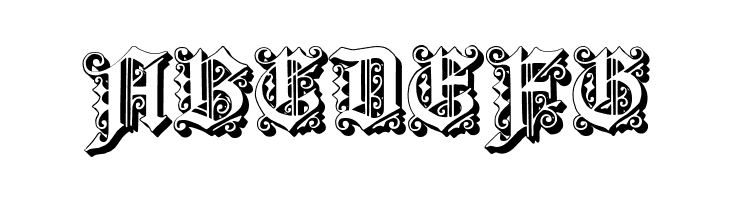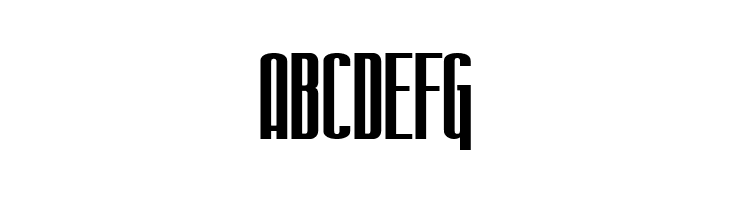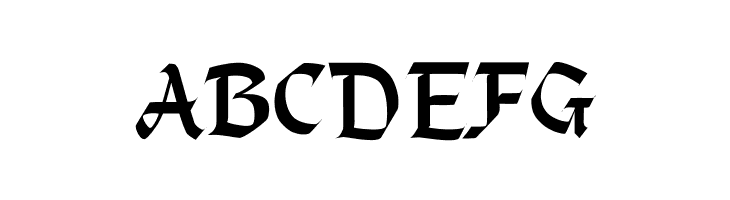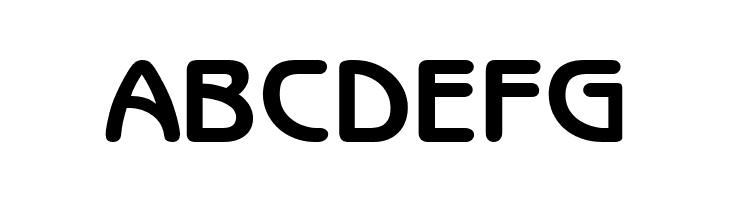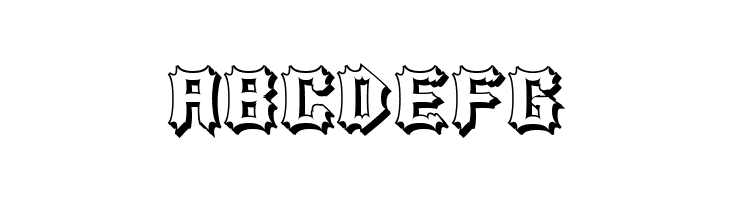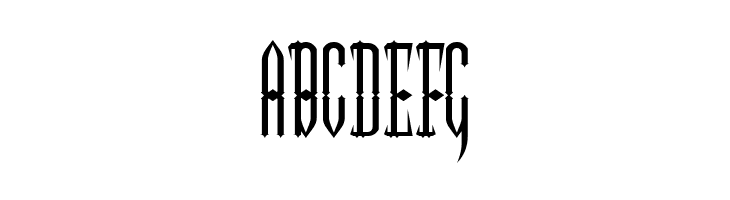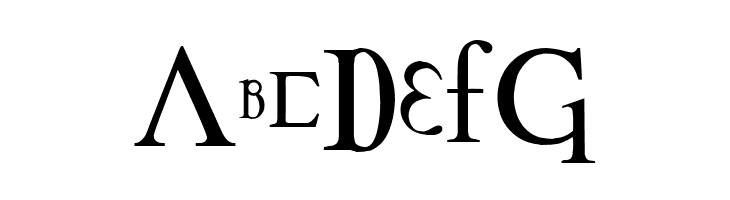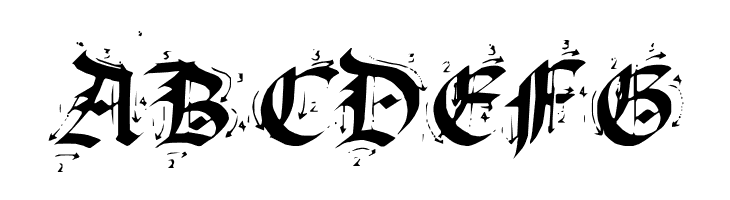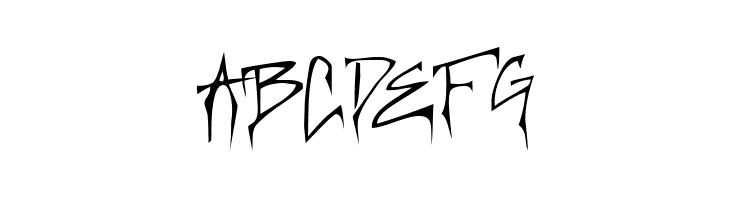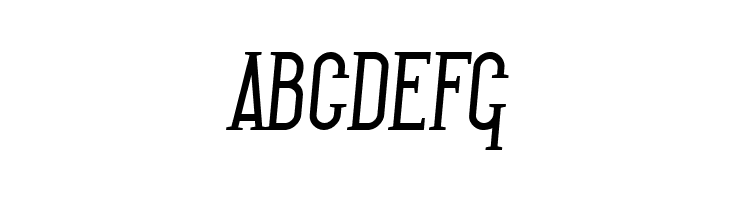
A bold, narrow, and modern font with an industrial feel.
A bold, gothic-inspired font with sharp, angular edges and intricate details.
A dramatic, elongated font with sharp serifs and a gothic flair.
An artistic, high-contrast font with gothic influences and modern flair.
A bold, gothic blackletter font with intricate, medieval-inspired designs.
A bold, angular serif font with a modern and slightly gothic style.
A bold, gothic-inspired font with sharp serifs and a medieval aesthetic.
A jagged, gothic-style font with sharp, dramatic characters.
A bold, angular font with a modern and futuristic style.
A bold, italicized font with a modern and assertive style.
A bold, geometric font with a modern, angular design.
A classic, medieval-inspired font with sharp, angular lines and intricate detailing.
A decorative and gothic font with sharp serifs and intricate details.
A bold, graffiti-inspired font with sharp, angular lines and high contrast.
A bold, decorative font with a medieval, gothic-inspired design.
A gothic-inspired font with bold, angular serifs and medieval embellishments.
A bold, gothic-inspired font with sharp, angular edges and dramatic flair.
A bold, gothic font with sharp, angular edges and a dramatic style.